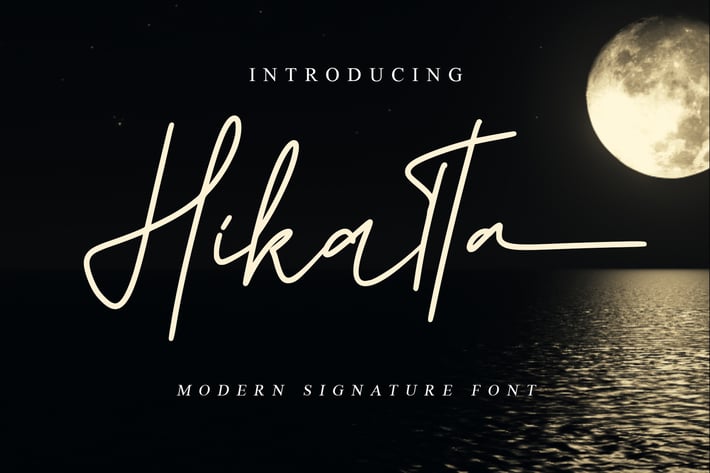
Hikatta - Casual Signature Font
Hikatta // Fashionable Handwritten Font
Hikatta is a beautiful and fashionable handwritten font with a unique feel and a stunning impact. It will add a luxury spark to any design project that you wish to create! This font is PUA encoded which means you can access all of the glyphs and swashes with ease!
It is suitable for any branding, product packaging, invitation, quote, t-shirt, label, poster, logo that you wish to create.
Stylish modern handwritten script
Special Ligatures and Swash
* Multilingual Support